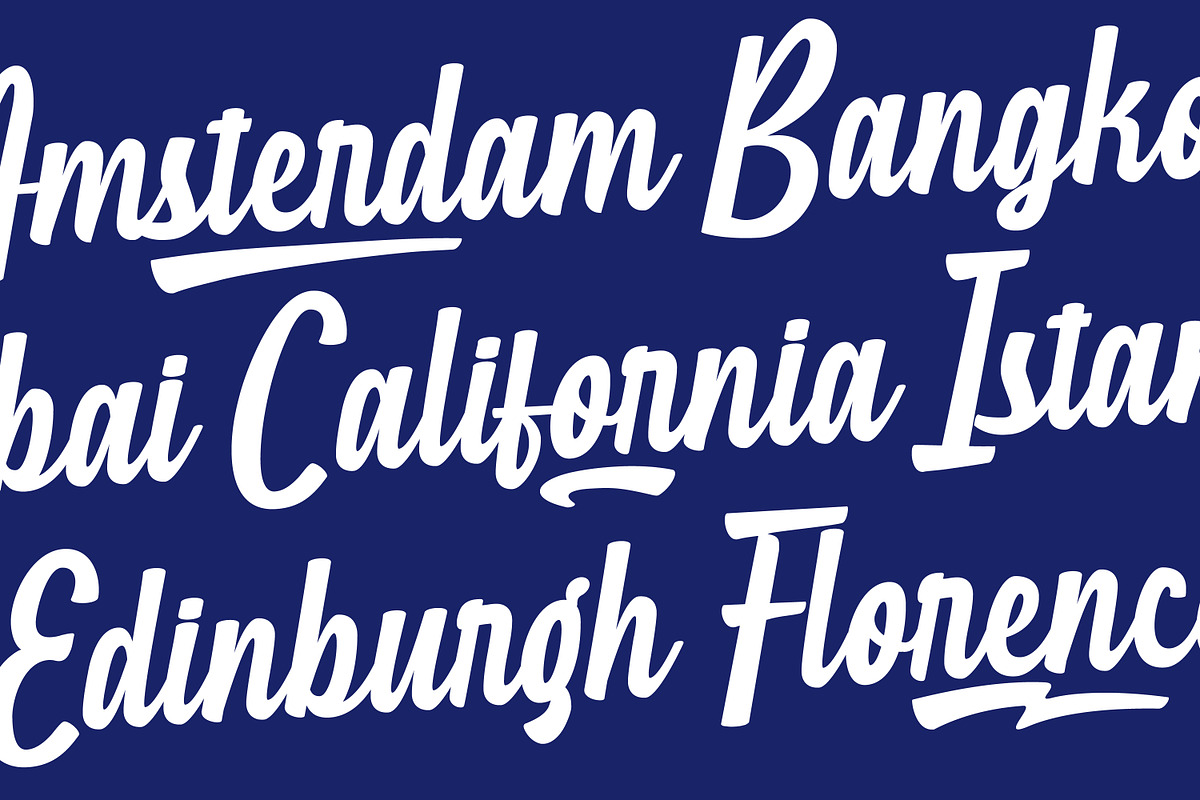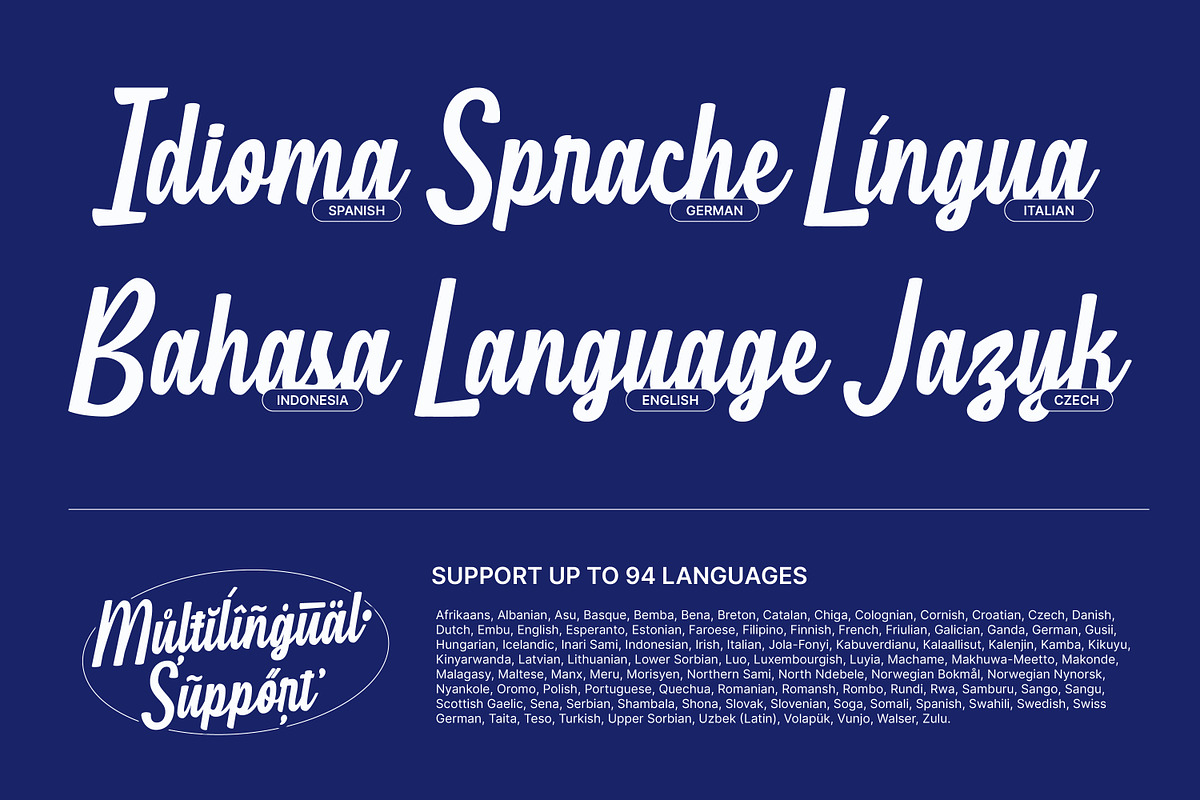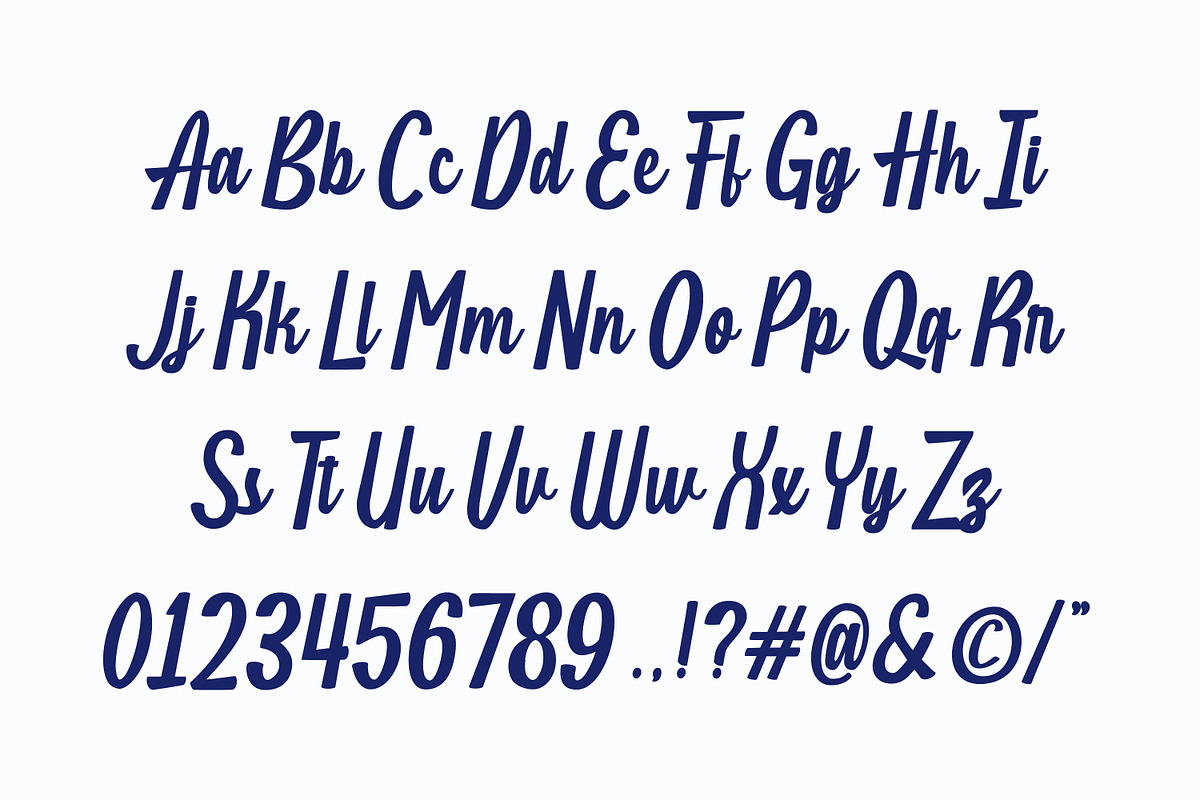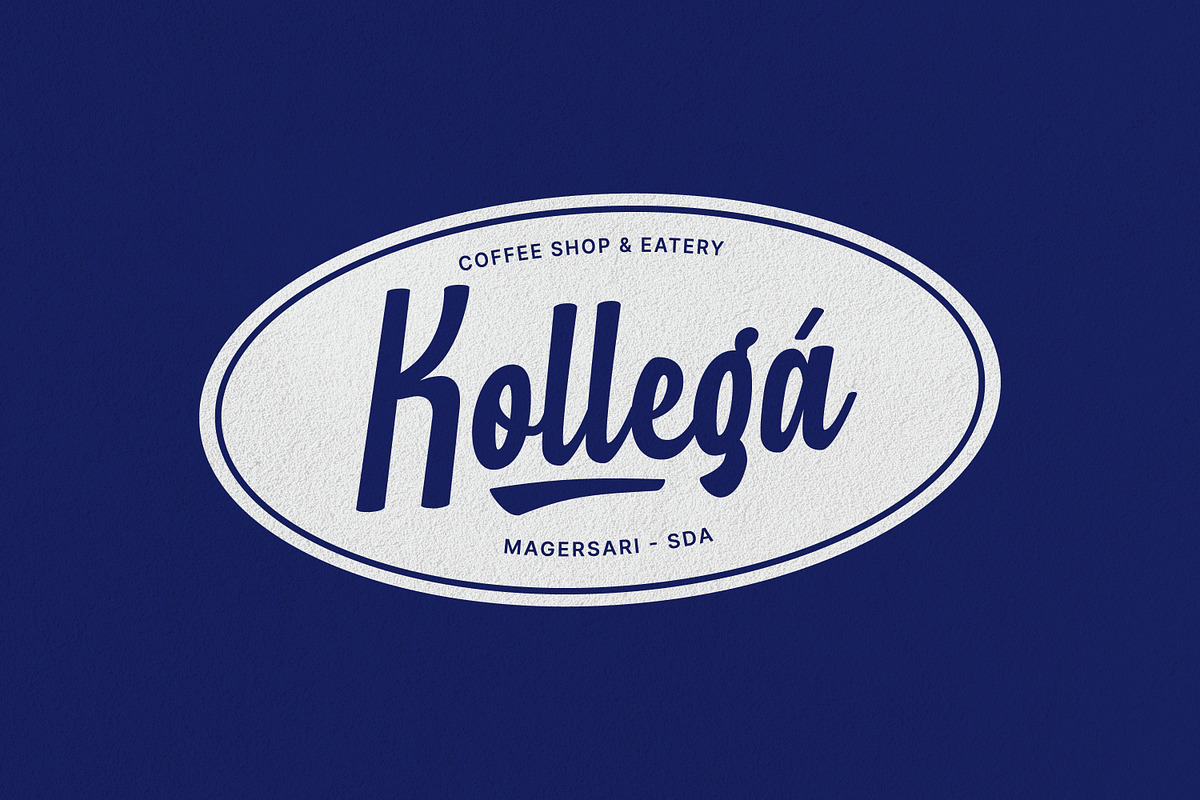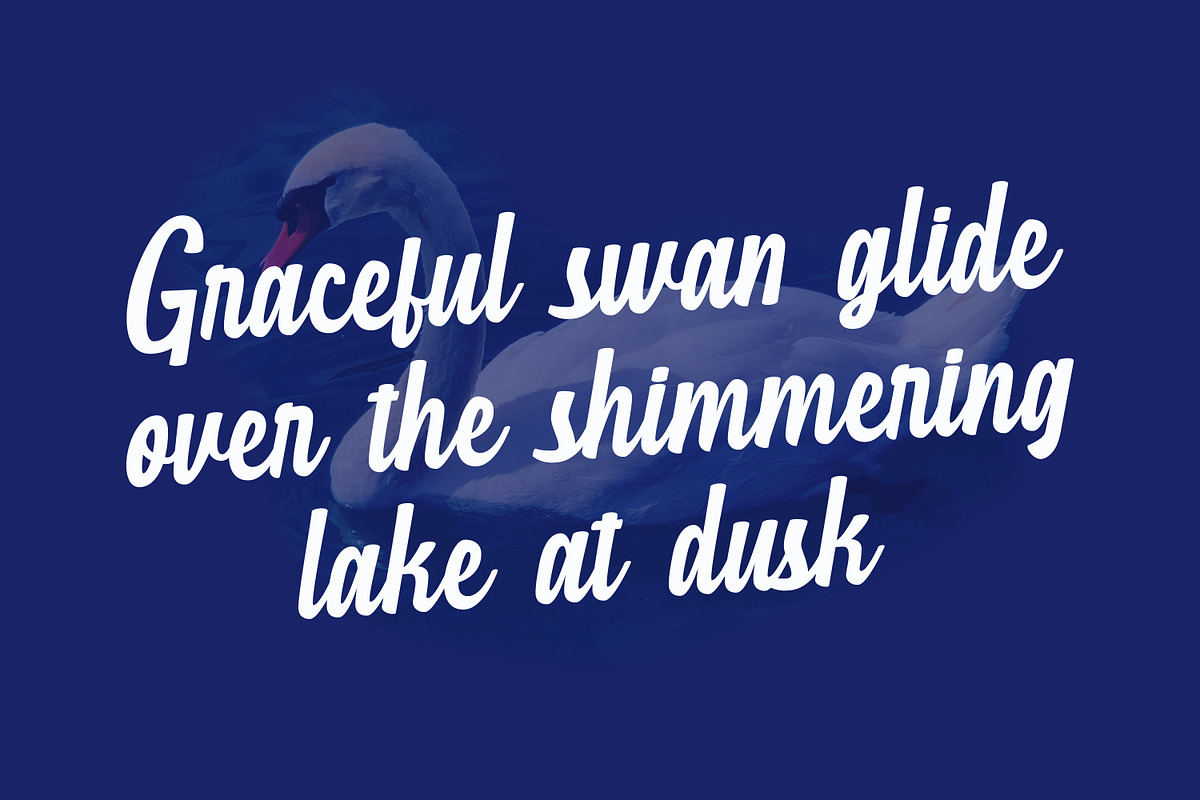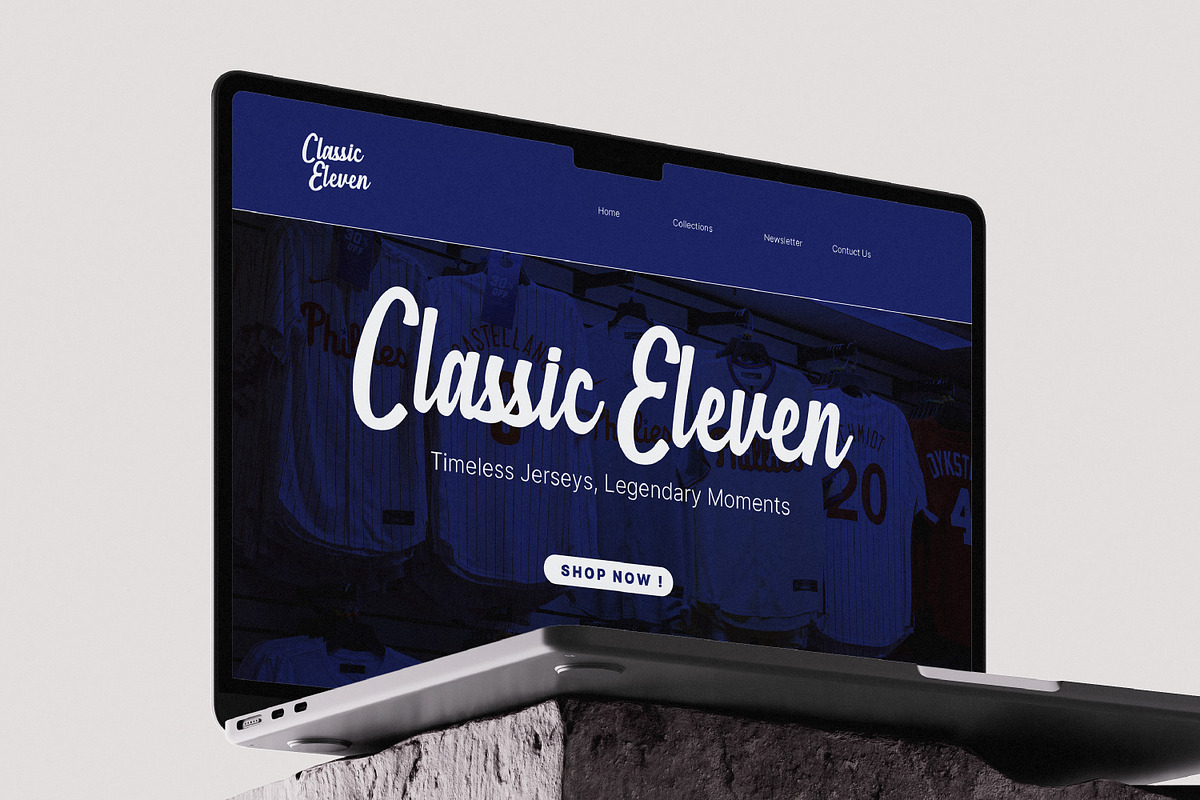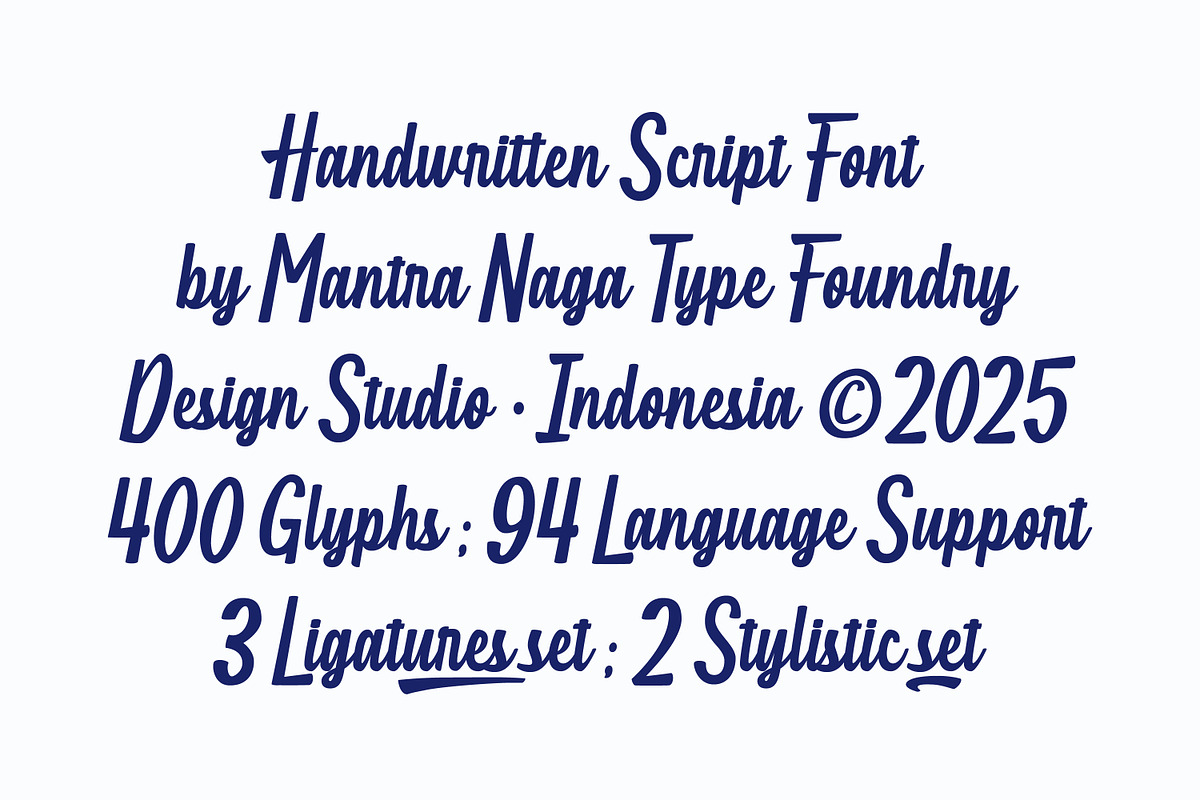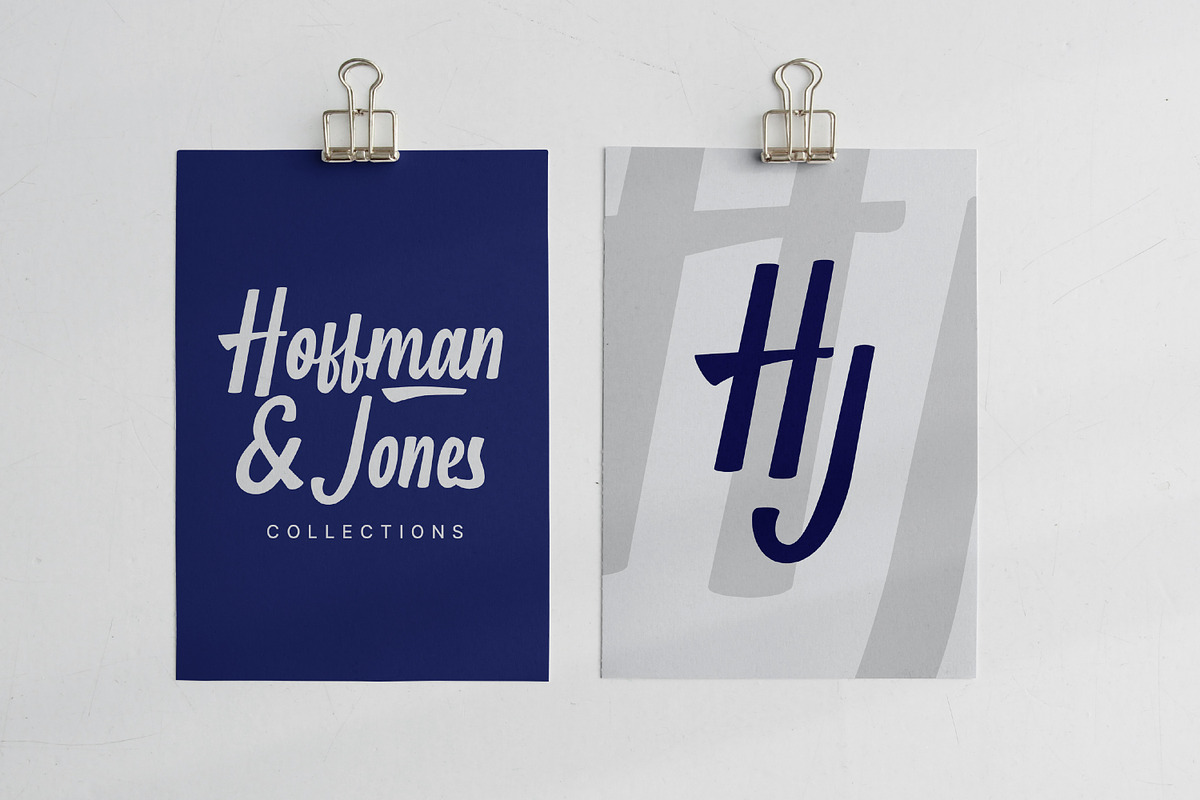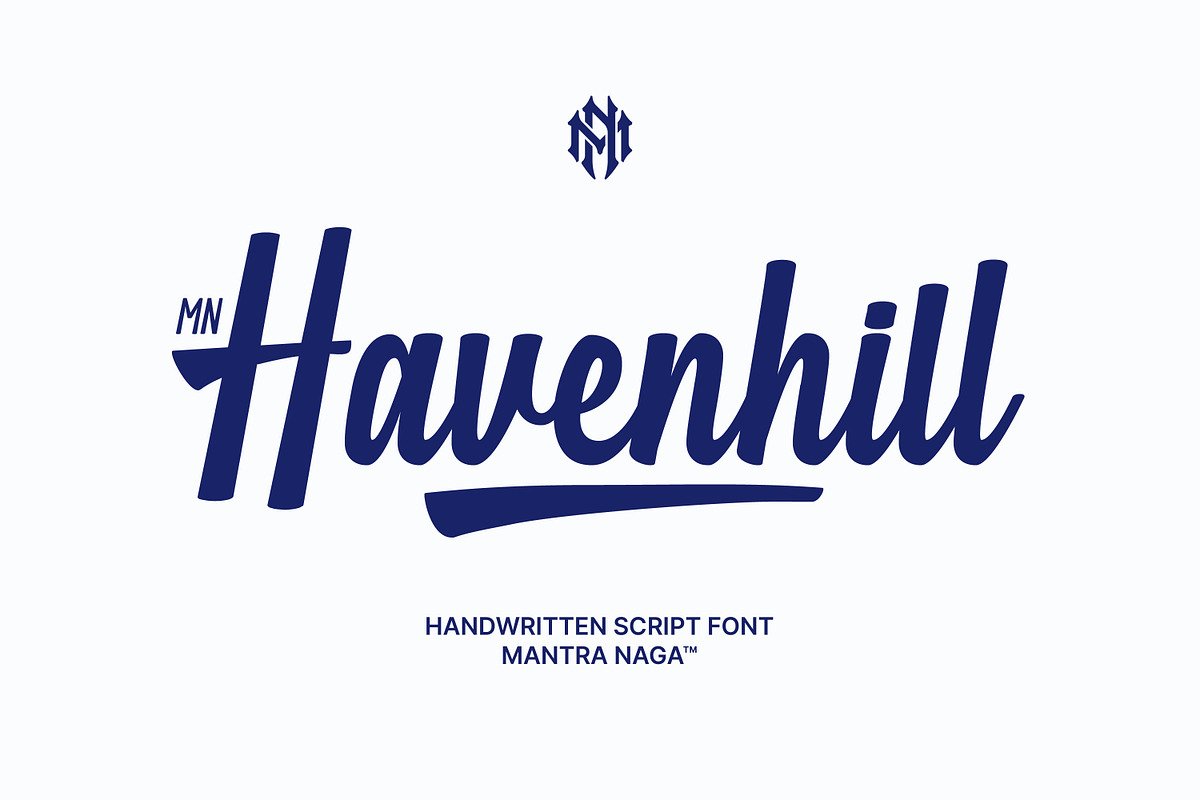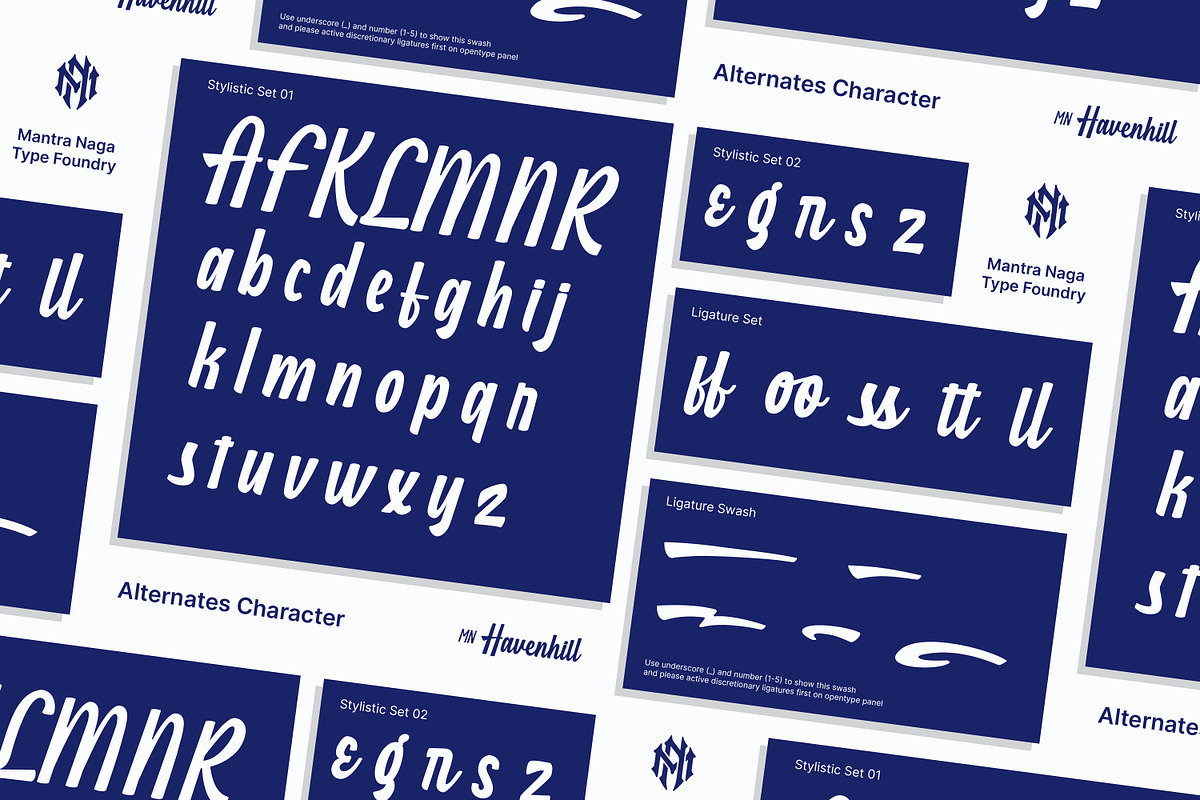
MN Havenhill - Handwritten Script
MN Havenhill is a handwritten script typeface designed to bring an authentic, hand-drawn look to your projects. With smooth, organic strokes, this font is ideal for branding, logotypes, packaging, event banners, and other display design needs.
Built for versatility, MN Havenhill supports 94 languages and includes 2 stylistic set alternates, a complete ligature set, and ligature swashes, giving designers the flexibility to create unique and dynamic typography. Whether for logo design, product packaging, or promotional materials, MN Havenhill provides a handwritten touch that enhances visual identity while ensuring readability.
Perfect for designers looking for a modern script font with a natural feel, MN Havenhill is a reliable choice for various creative projects.